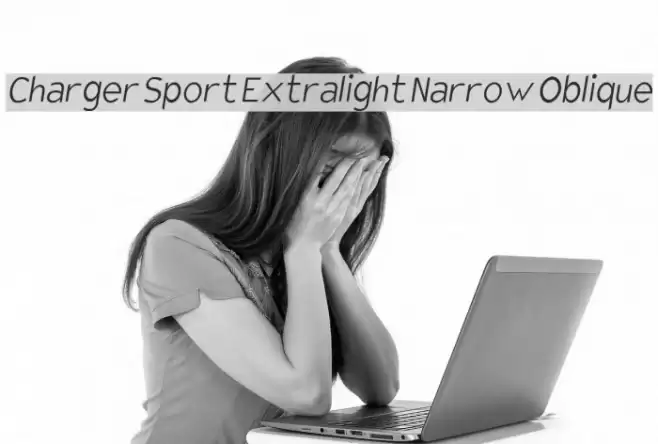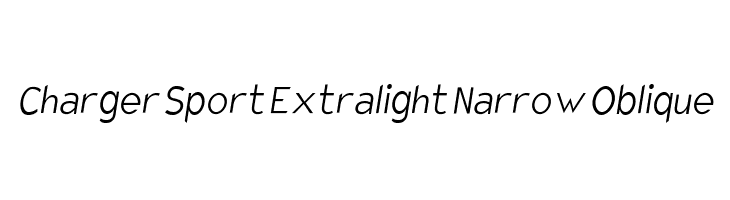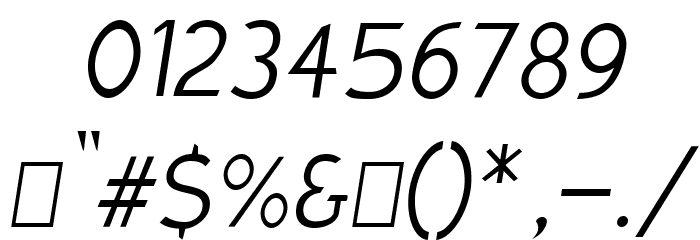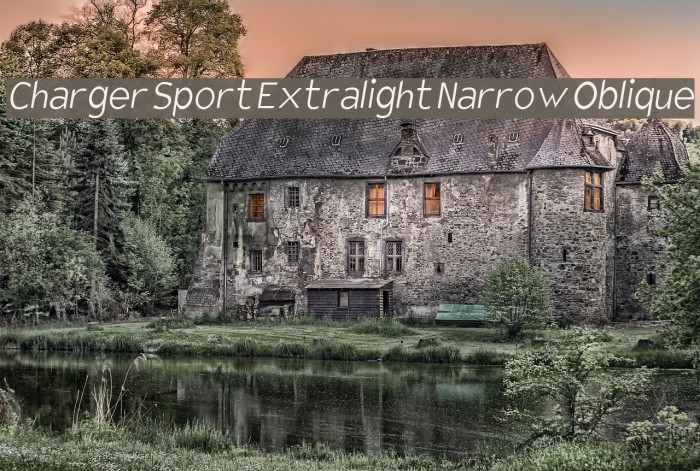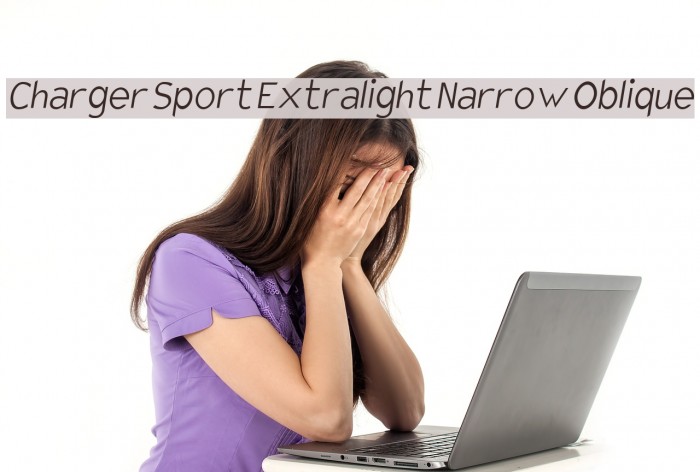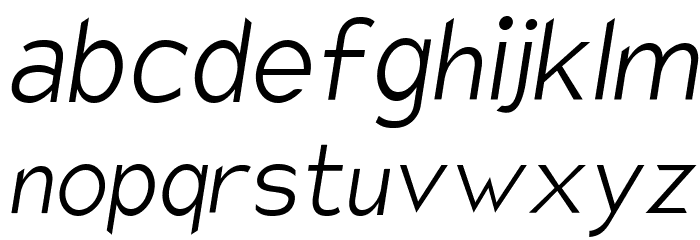
Charger Sport Extralight Narrow Oblique Font
Charger Sport Extralight Narrow Oblique Description
This font exhibits a sleek and modern aesthetic with a distinct oblique slant, giving it a dynamic and forward-moving appearance. The characters are designed with an extra-light weight, contributing to a clean and airy feel. The narrow width of the letters enhances its streamlined look, making it ideal for contemporary designs. The font maintains a consistent stroke width, resulting in low contrast, which adds to its minimalist appeal. Its geometric shapes and smooth curves provide a sense of elegance and sophistication. The character spacing is normal, ensuring readability while maintaining a stylish presentation.
A sleek, extra-light, narrow, and oblique font with a modern aesthetic from Uncategorized fonts.
- Proposed Projects: Ideal for modern branding, tech-related projects, sleek editorial layouts, and minimalist web design.
- Use Case: Headlines, Logos, Editorial design